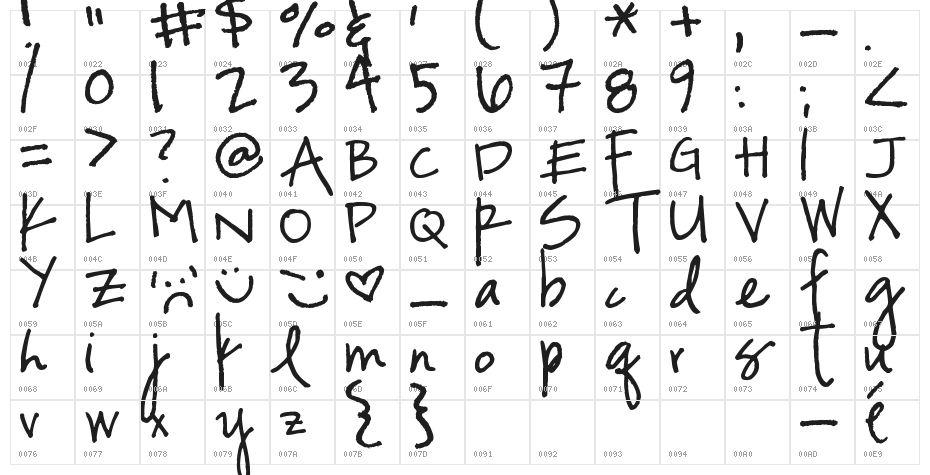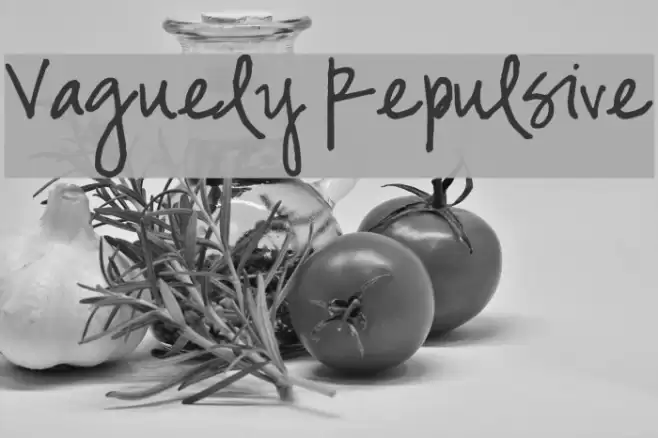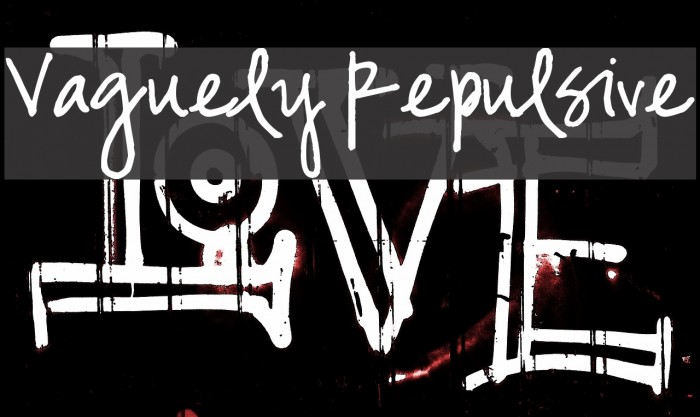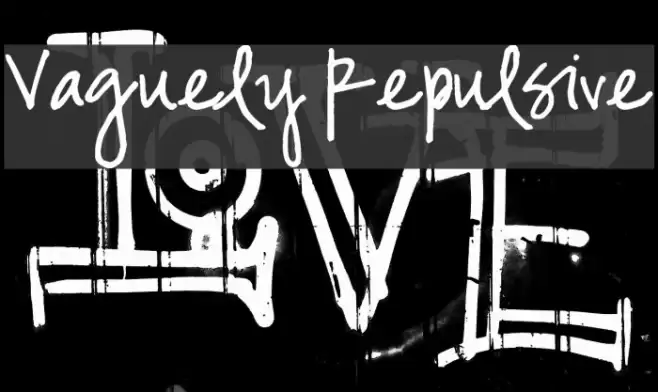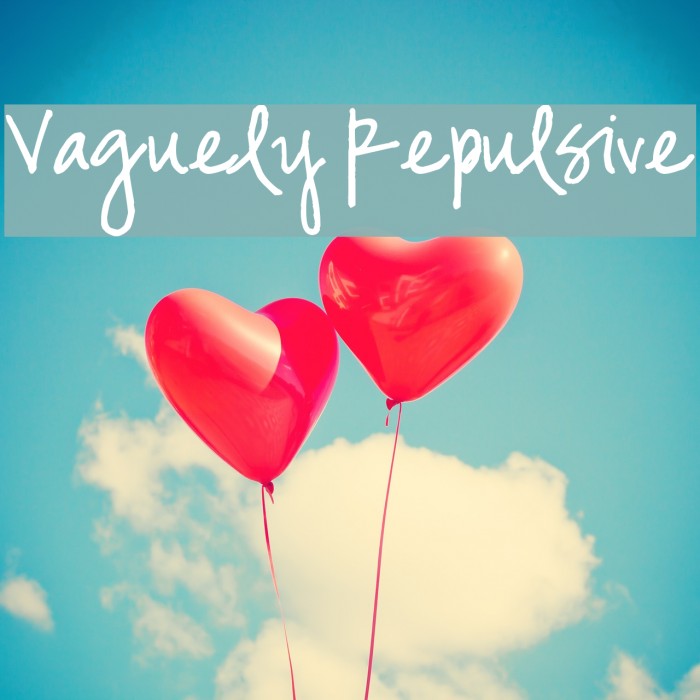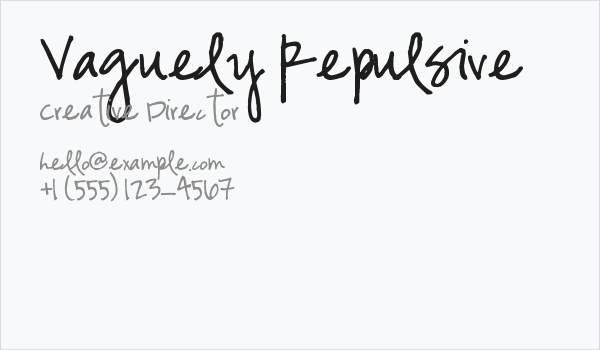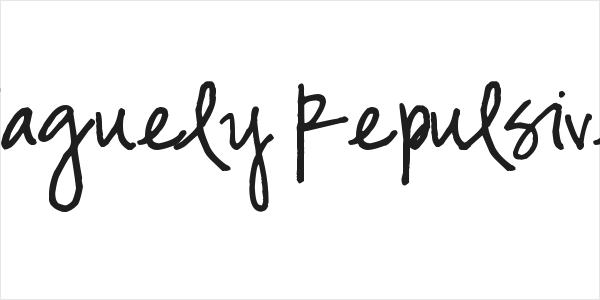
Vaguely Repulsive Font
Vaguely Repulsive Description
This font exudes a casual, handwritten style with a playful and slightly chaotic appearance. The letters are unevenly spaced and vary in size, giving it a spontaneous and dynamic feel. The strokes are bold and confident, with a slight slant that adds to its informal charm. The uppercase and lowercase letters are distinct, with unique character shapes that enhance its quirky personality. The numerals and special characters maintain the same lively and unrefined aesthetic, making it suitable for creative and informal projects.
| Proposed Projects | Ideal for creative projects such as greeting cards, posters, and informal branding materials. |